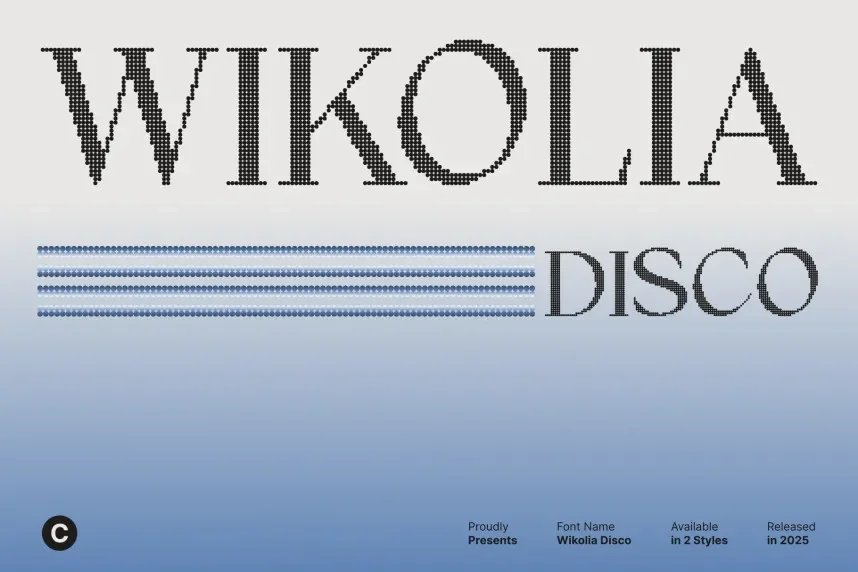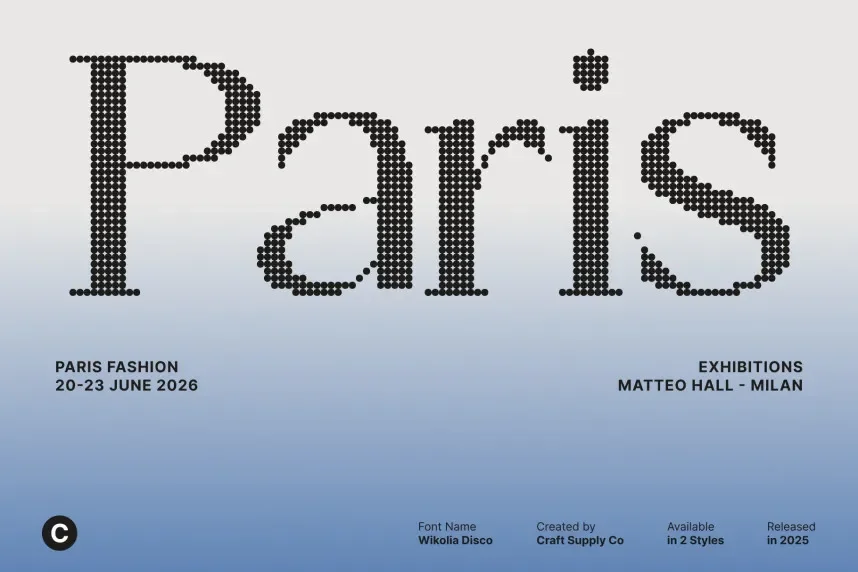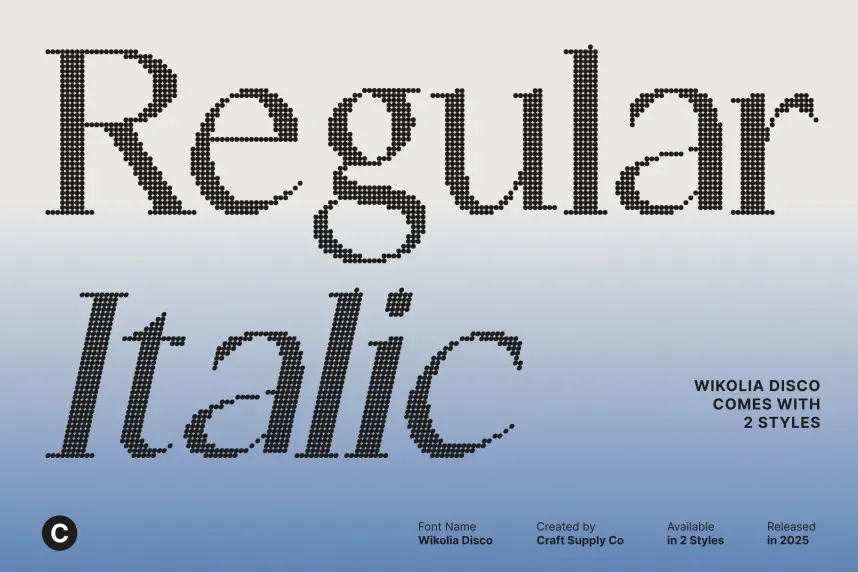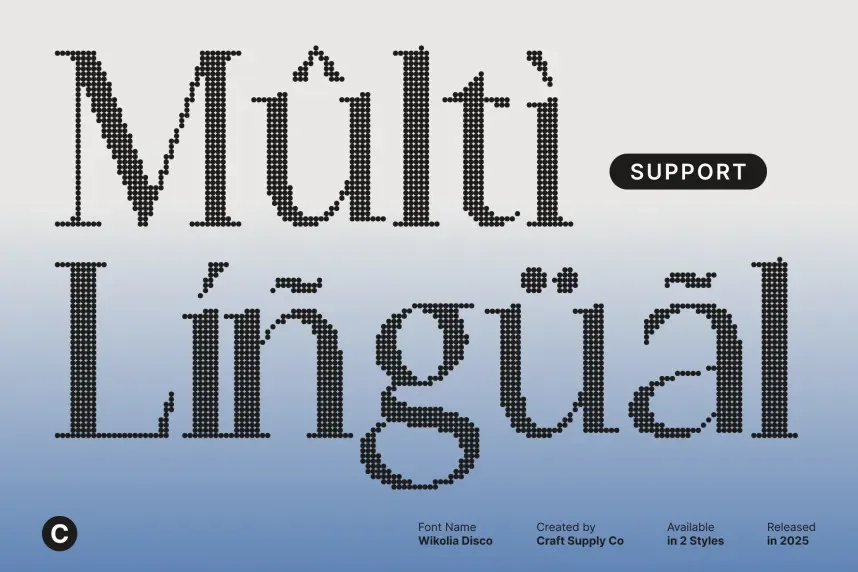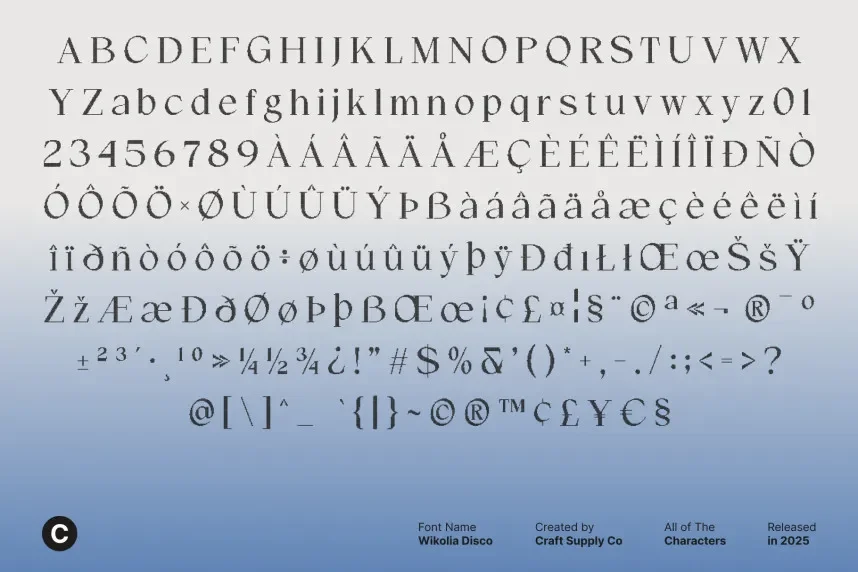
Wikolia Disco Font is a display typeface created for designers who need bold visual impact without losing clarity. It addresses issues where decorative fonts become hard to read in branding, signage, and promotional graphics.
This font features rounded letterforms, consistent stroke thickness, and balanced spacing. The disco-inspired design relies on solid shapes rather than sharp contrast, helping text stay legible across print and screen use. Wikolia Disco Font works best in uppercase or short headline text.